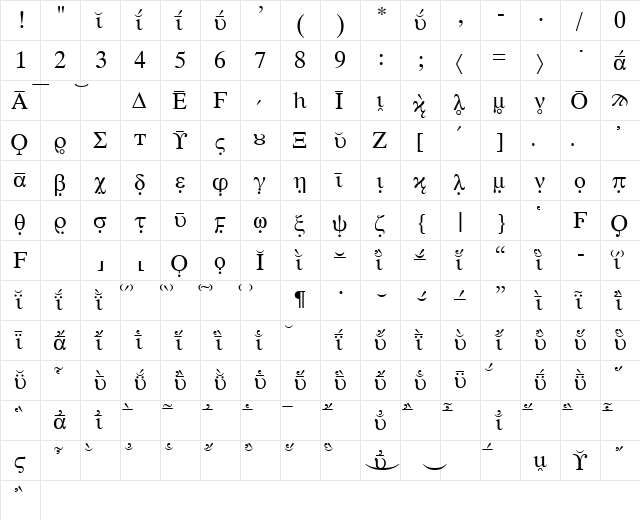
HellenicaExtras Regular Font Preview
HellenicaExtras Regular
HellenicaExtras Regular Font Details
Design Context for HellenicaExtras Typeface
HellenicaExtras offers clean, dependable letterforms without strong stylistic allegiance, making it a practical choice for designers who need flexibility.